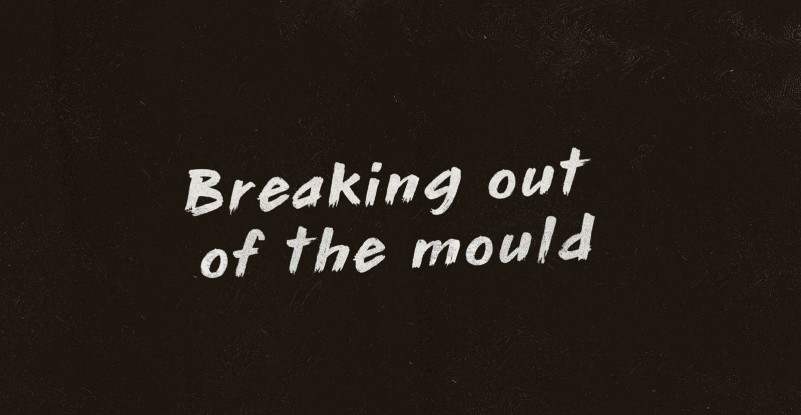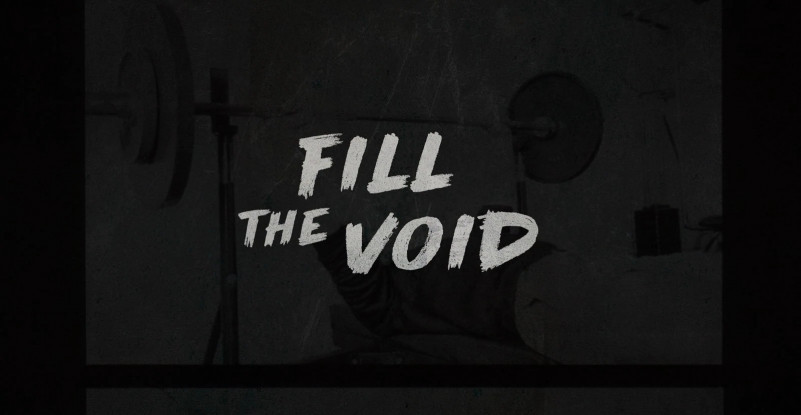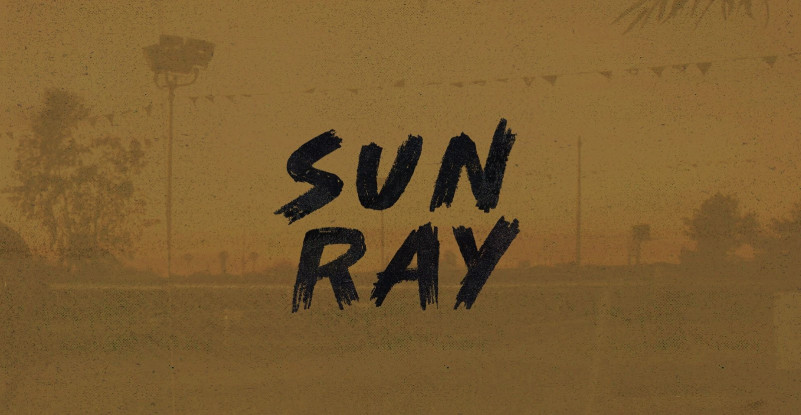
Sun Ray Brush Font
Depending on the time of day you’ll see a Sun Ray lay low like blankets and batoids. Or it sits in front of its zenith, getting high enough, anyway, to ride its origin back to earth, sailing home on solar currents.
Sun Ray Font, it can easily be matched to an incredibly large set of projects, so add it to your creative ideas and notice how it makes them stand out!